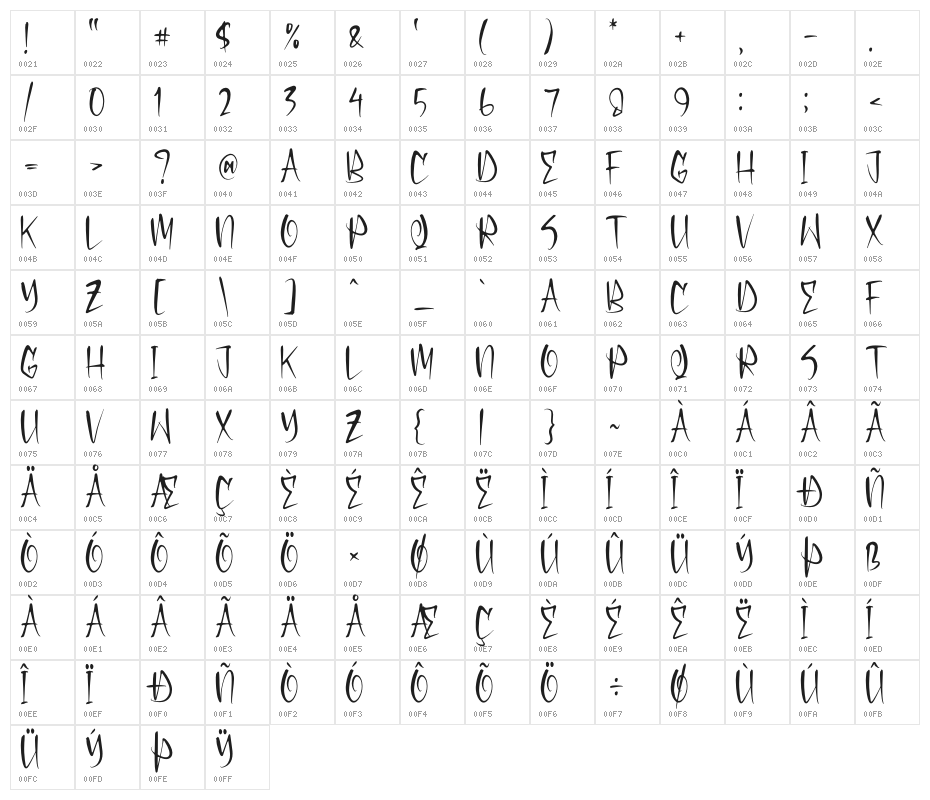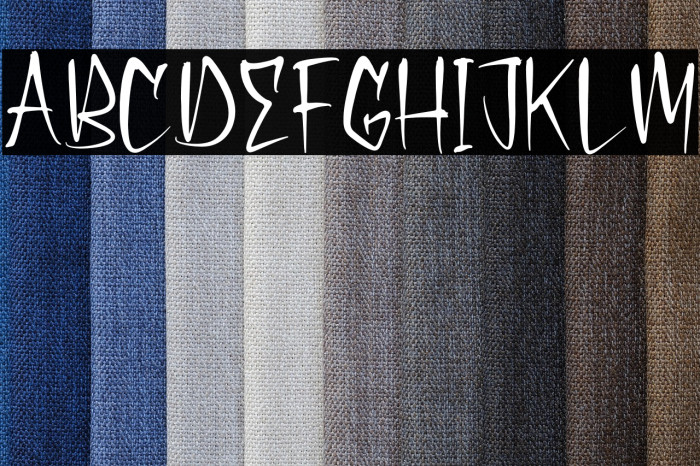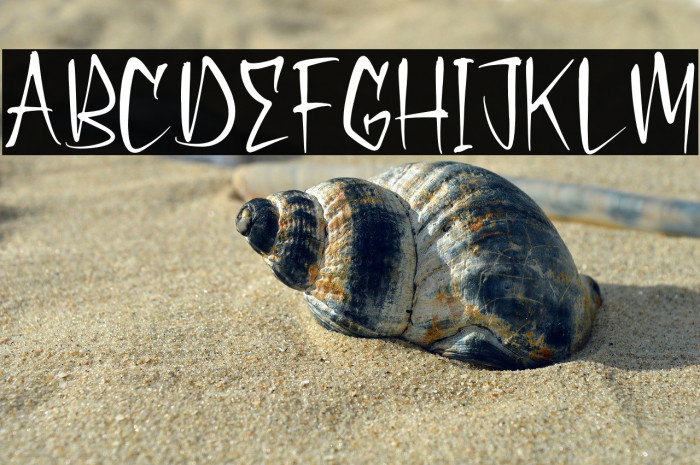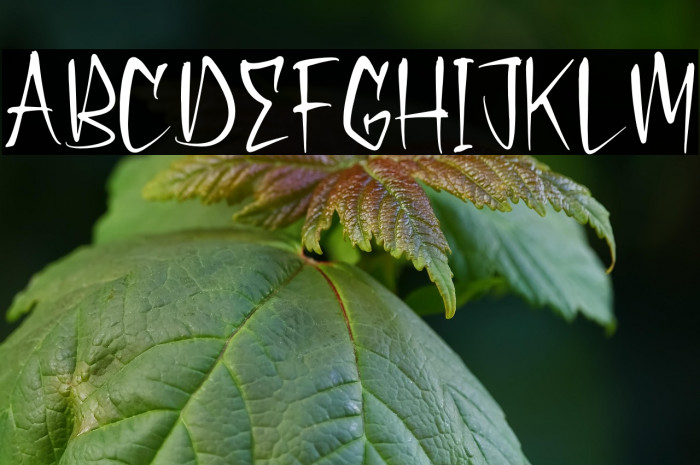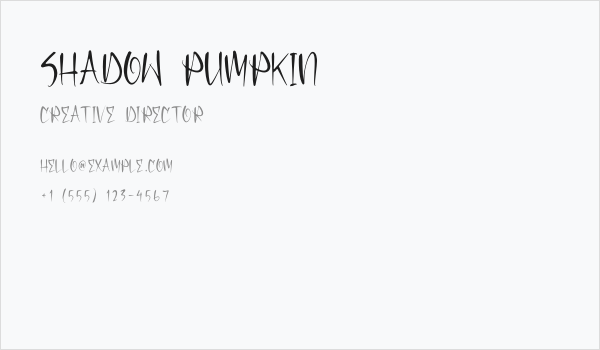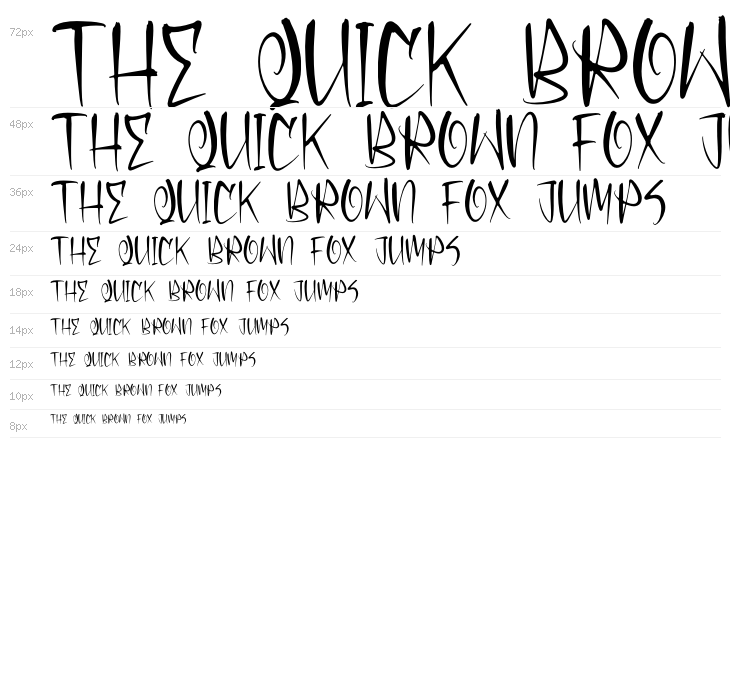
Shadow Pumpkin Font
Shadow Pumpkin Description
This font features a playful and dynamic handwritten style, characterized by its irregular and spontaneous strokes. The letters exhibit a lively and energetic appearance, with varying line thickness that adds a sense of movement and personality. The uppercase and lowercase letters maintain a consistent style, while the numbers and special characters complement the overall aesthetic. The font's unique charm makes it suitable for creative and informal projects, where a touch of whimsy and individuality is desired.
| Proposed Projects | Ideal for greeting cards, invitations, children's books, and creative branding. |